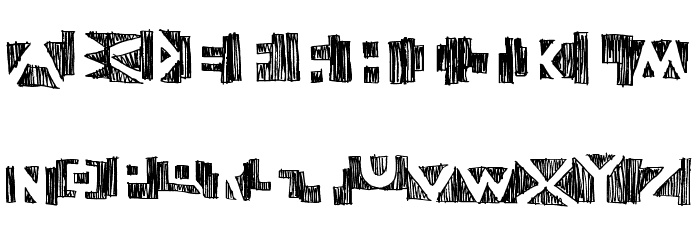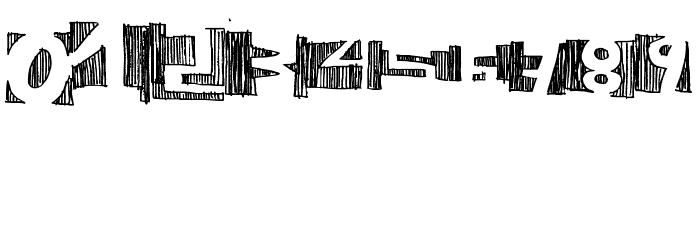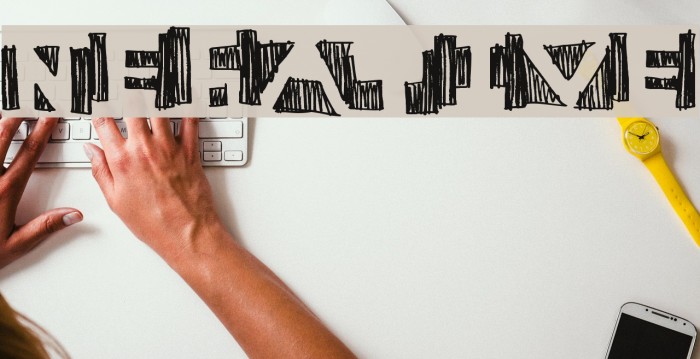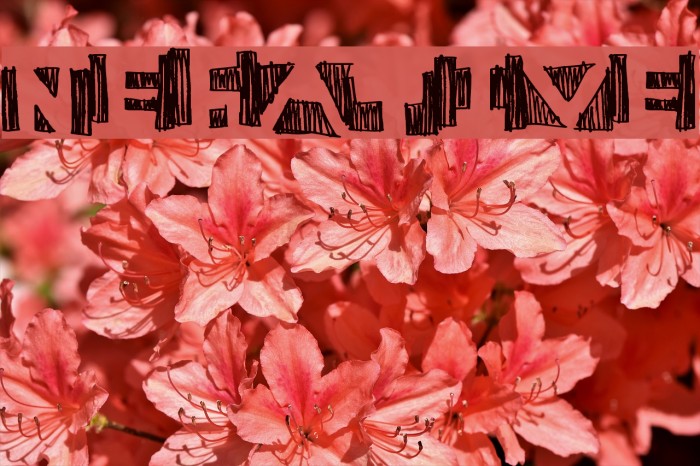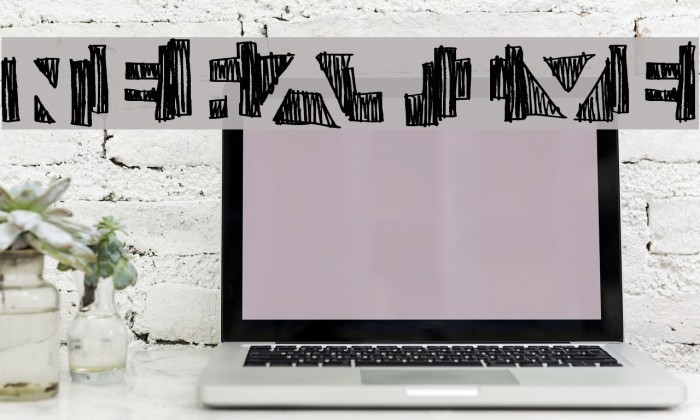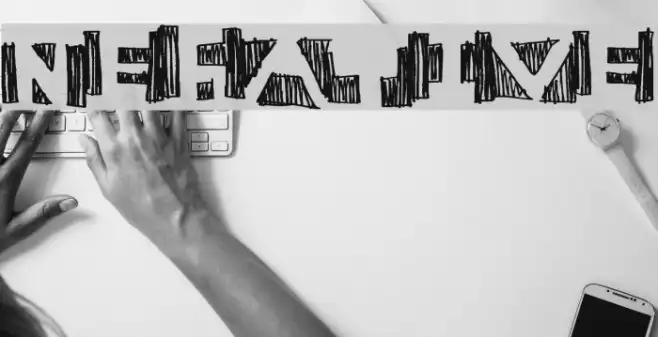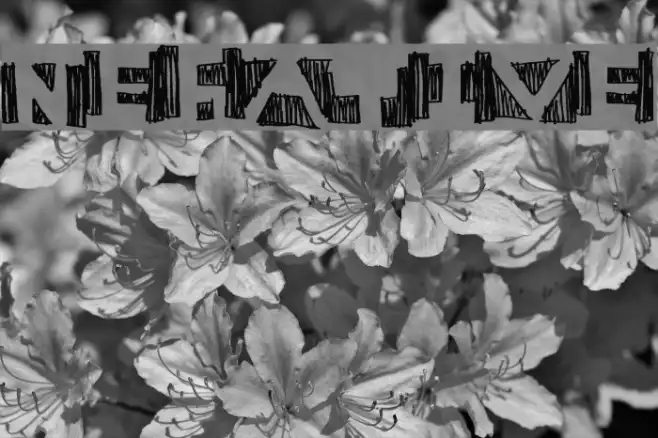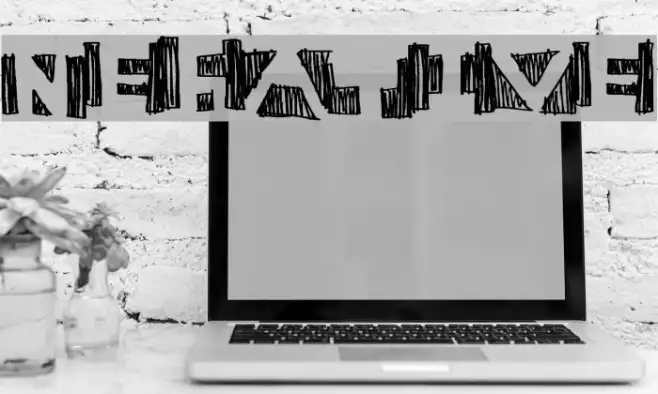
negative Font
This font features a highly decorative and abstract style, characterized by bold, geometric shapes and intricate patterns. Each character is uniquely designed with a combination of lines, angles, and shading that create a textured, hand-drawn appearance. The letters and numbers are filled with dense, sketch-like strokes that give them a dynamic and artistic feel. The overall aesthetic is reminiscent of tribal or ancient script influences, making it stand out as a statement piece in any design. The font's complexity and visual interest make it suitable for projects that require a strong, artistic impact.
A bold, decorative font with geometric shapes and intricate, hand-drawn patterns.
- Proposed Projects: Ideal for artistic posters, album covers, branding for creative industries, and unique logo designs.
- Use Case: Logos, Headlines, Artistic projects